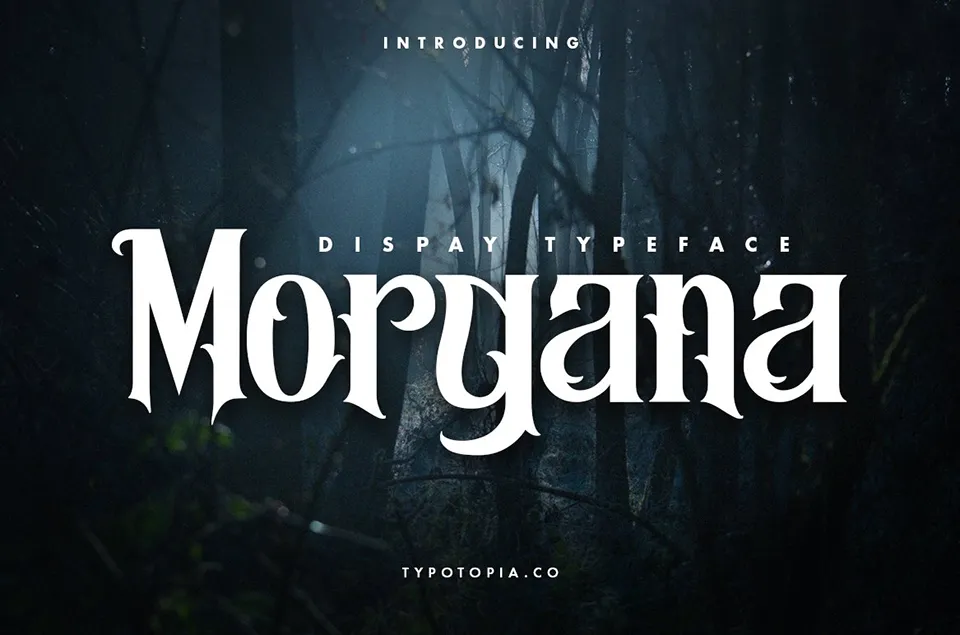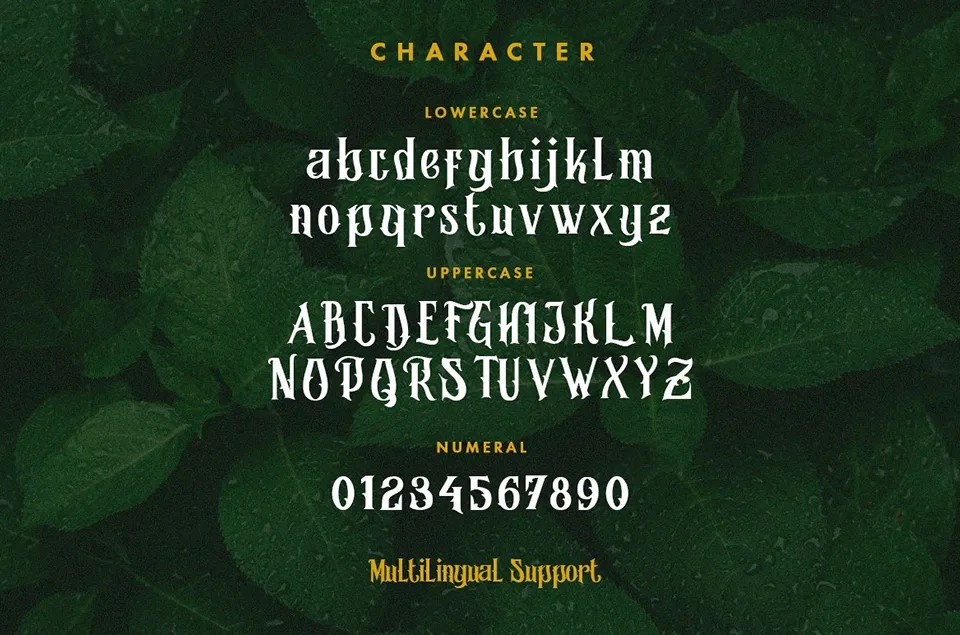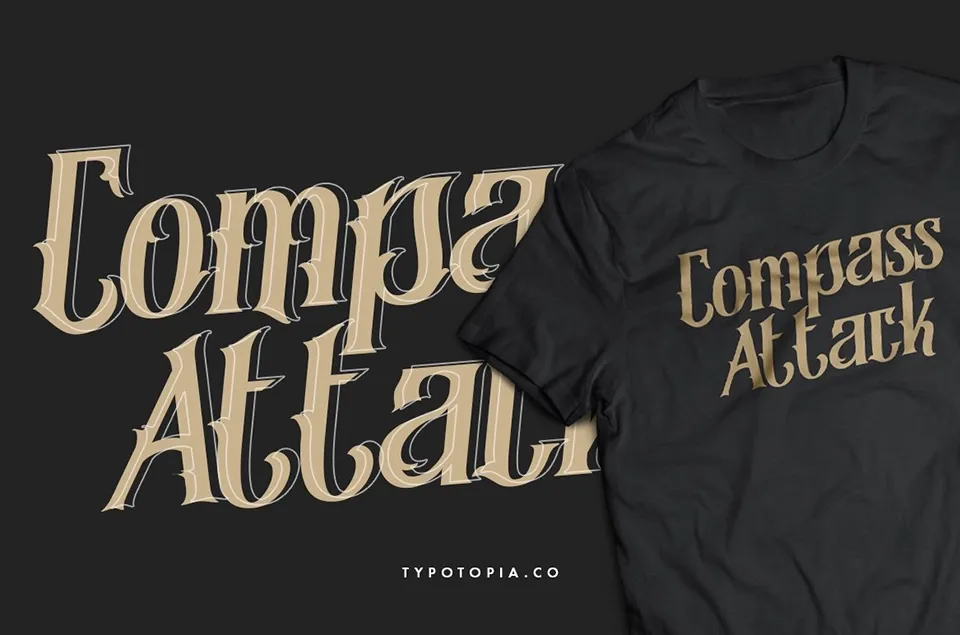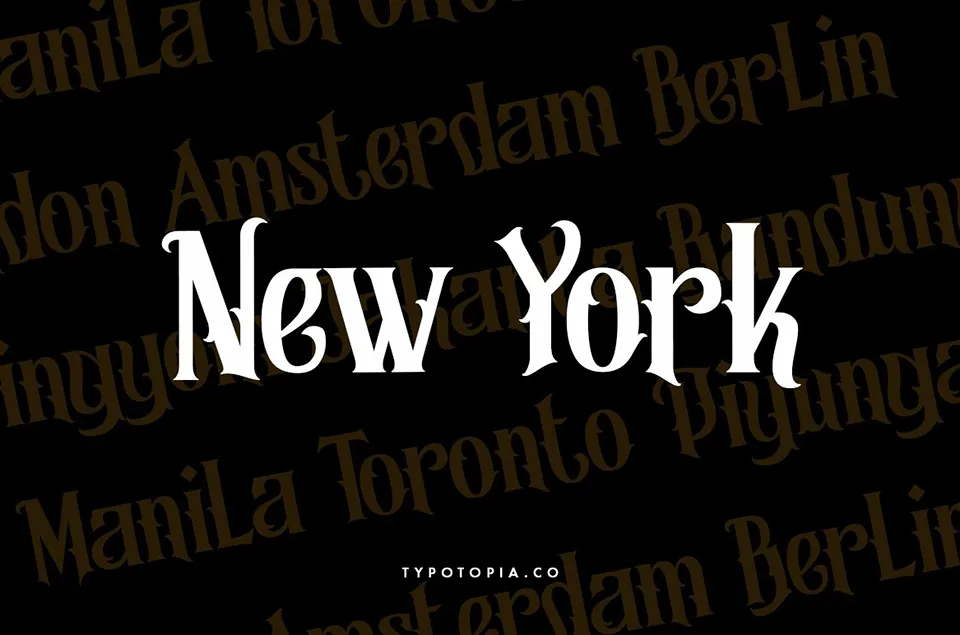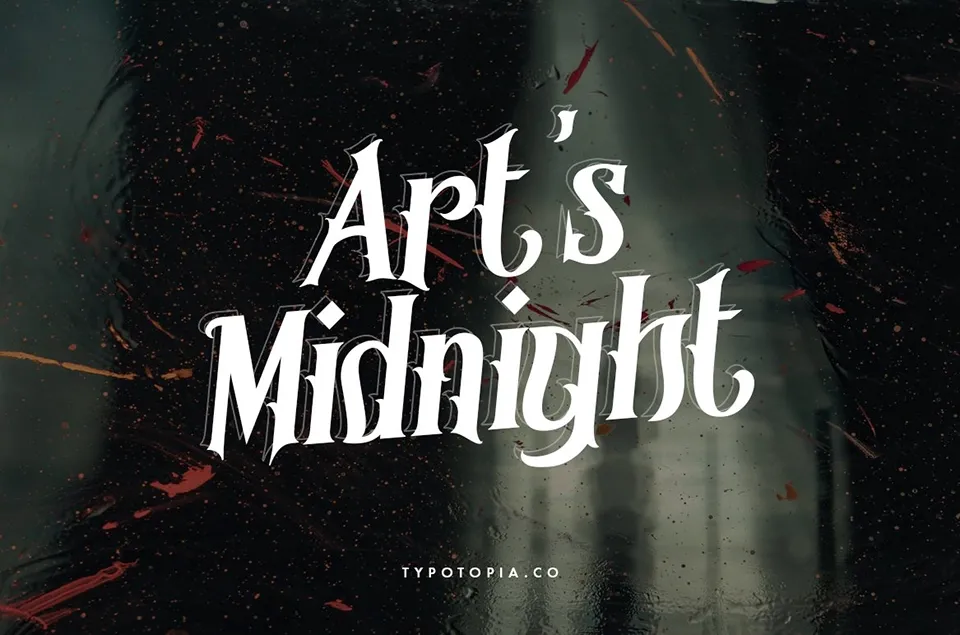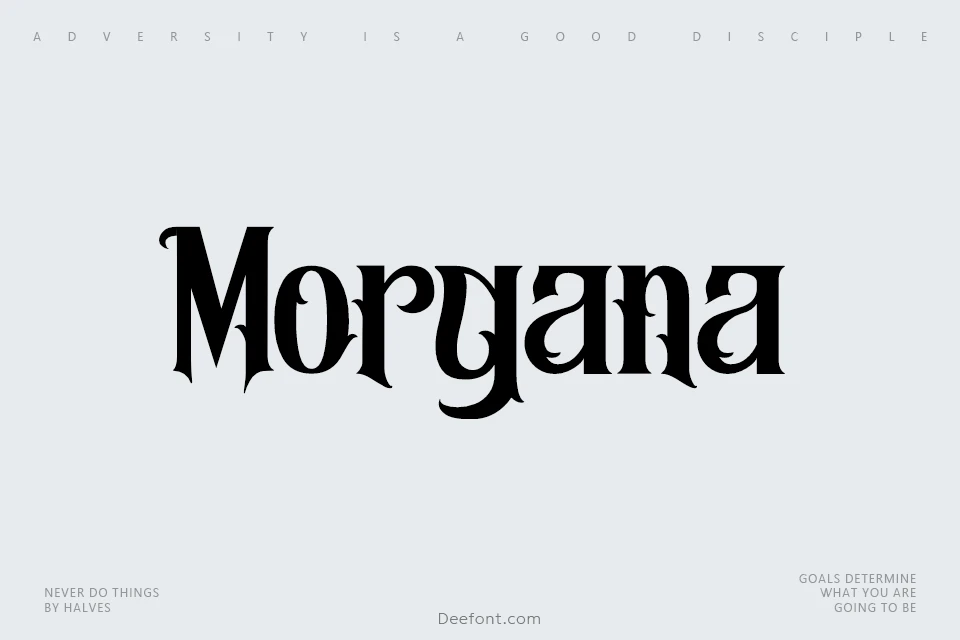
Morgana Display Font
Morgana Display Font is a unique and decorative serif typeface that draws inspiration from vintage lettering and classic horror aesthetics. With its bold, expressive shapes and modern twist, Morgana Display Font is perfect for headlines, branding, apparel, invitations, packaging, advertising, and more. The font supports multilingual characters and offers both uppercase and lowercase letters, making it a versatile choice for creative projects that require a touch of mystery and elegance.